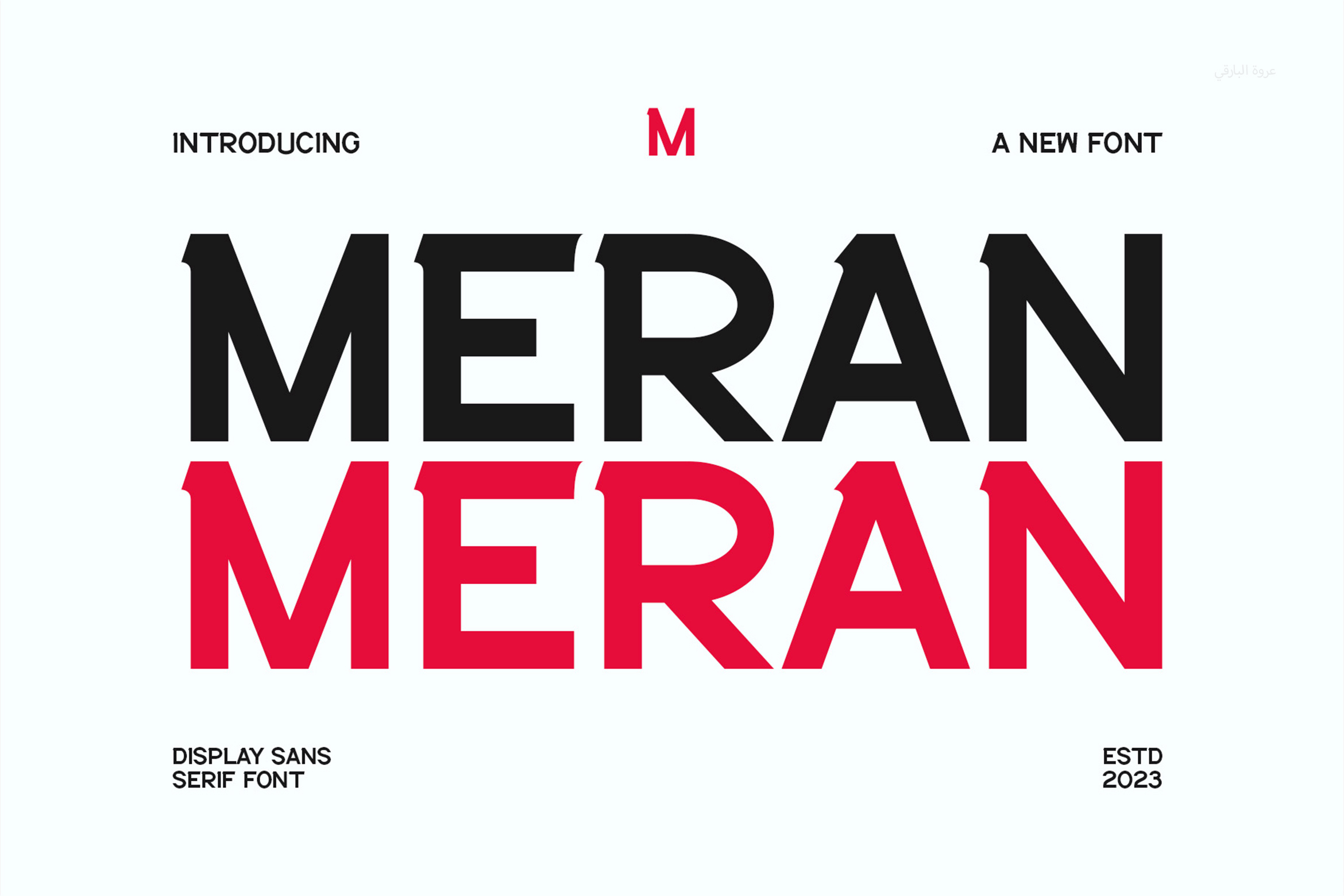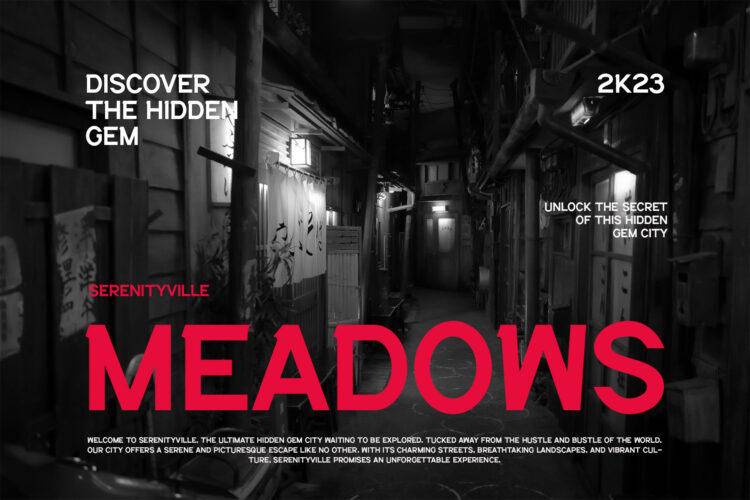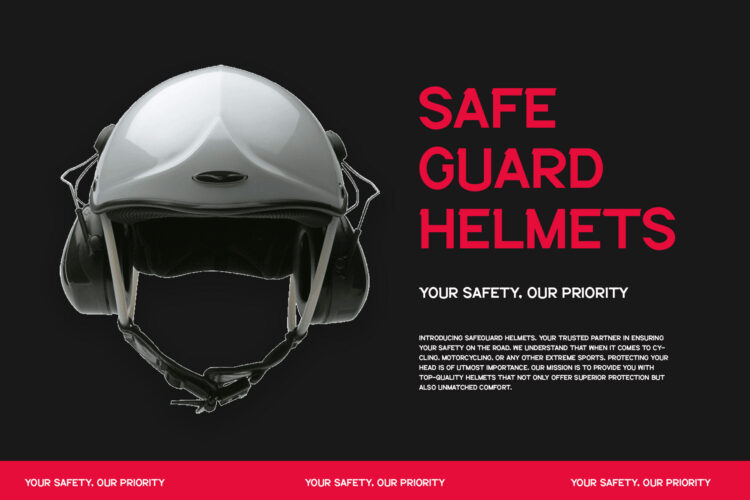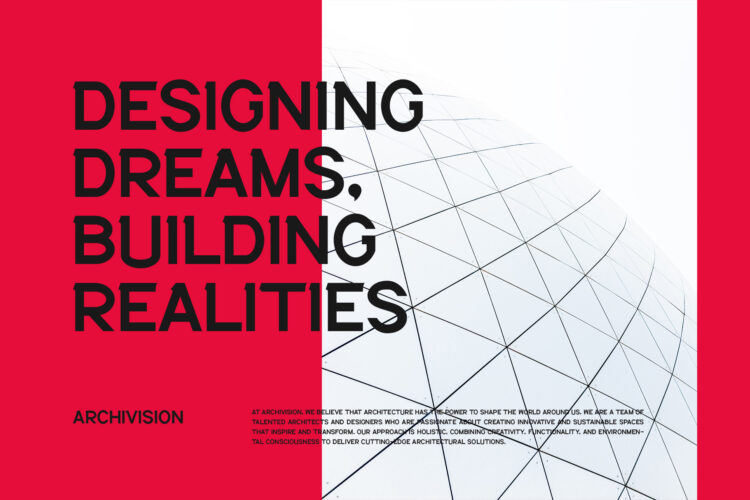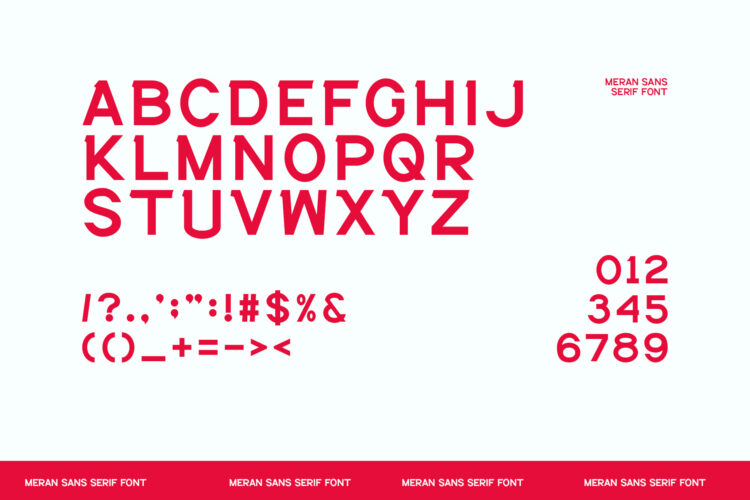
Introducing our new Meran, modern sans serif font with elegant style this is perfect for branding, logos, invitation, magazines, product packaging and more.
Meran – Modern Sans Serif